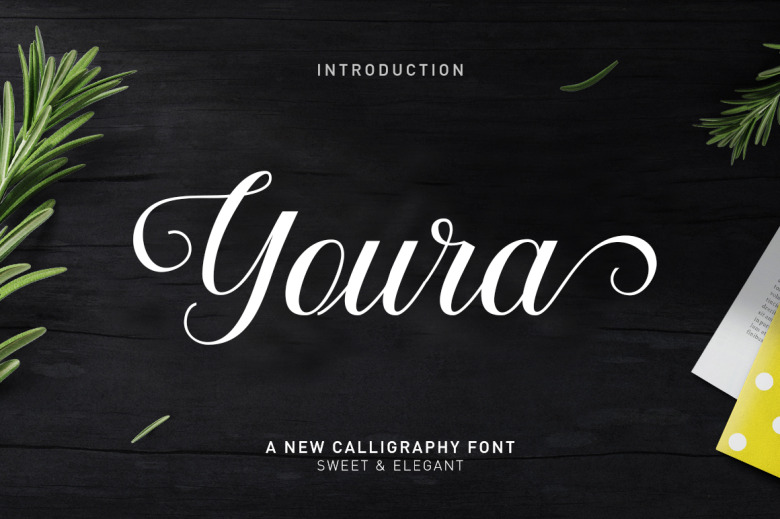
Youra Font
Youra is exceptional fully stunning, classy, and lovely calligraphy script font. Take the following tips from it’s playful elegance: Suitable for any design needs : logo, visual identity, contemporary advertisement graphics, logos, quote poster, a title of the book/cover, newspapers/magazines, website/blog, greeting card, T-shirts and any lettering projects.
Youra Calligraphy Script Font